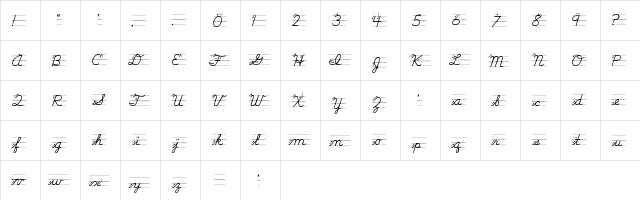
Life-Lessons Regular
Design Context for Life-Lessons Typeface
Life-Lessons is a composed and adaptable typeface that performs quietly and consistently across a wide range of design contexts.